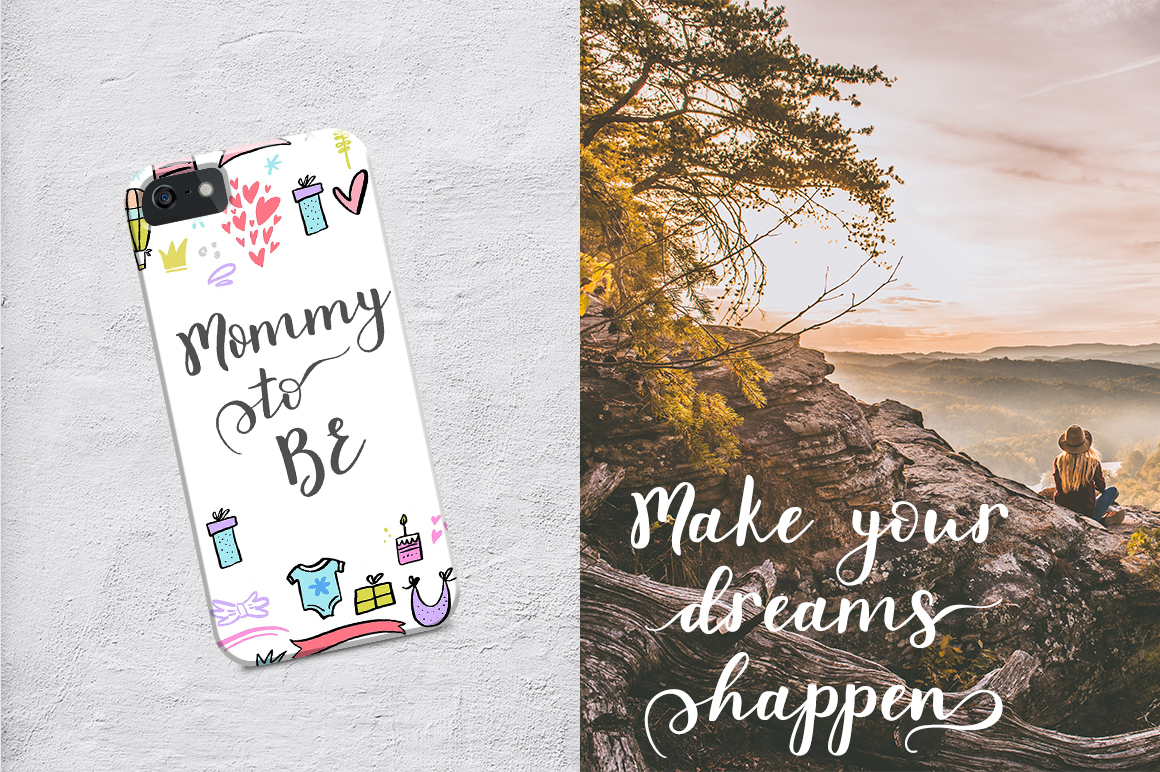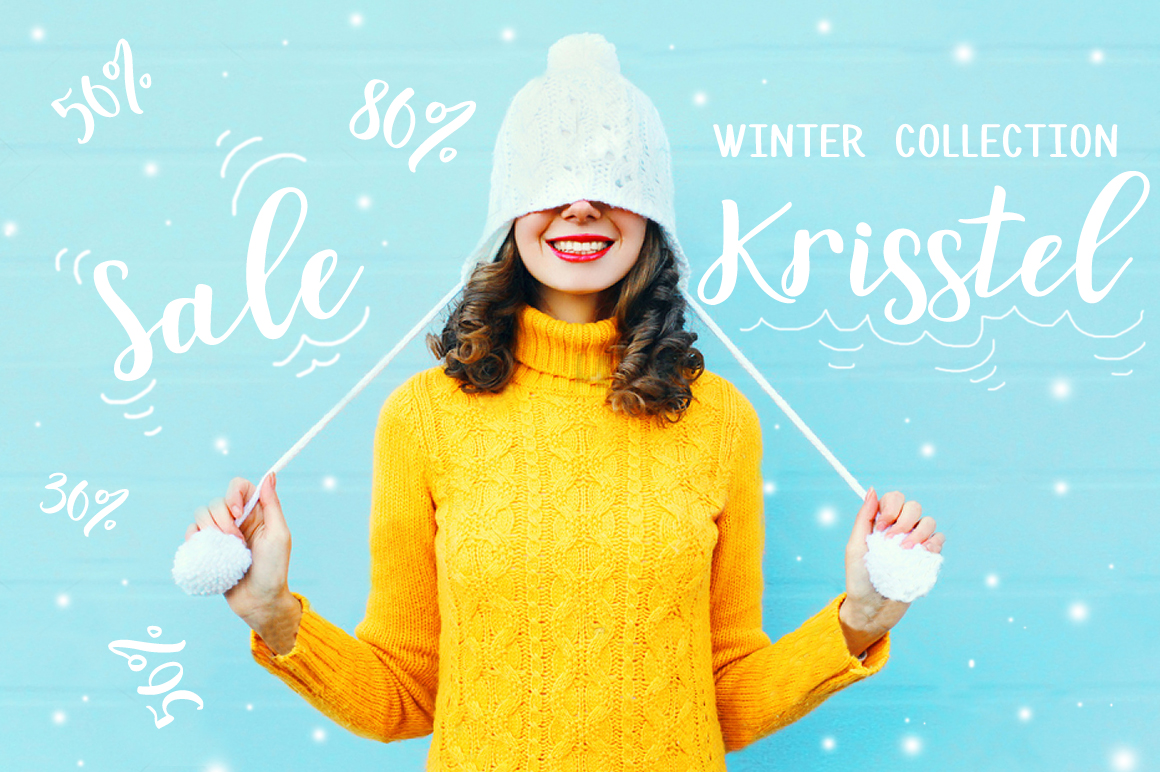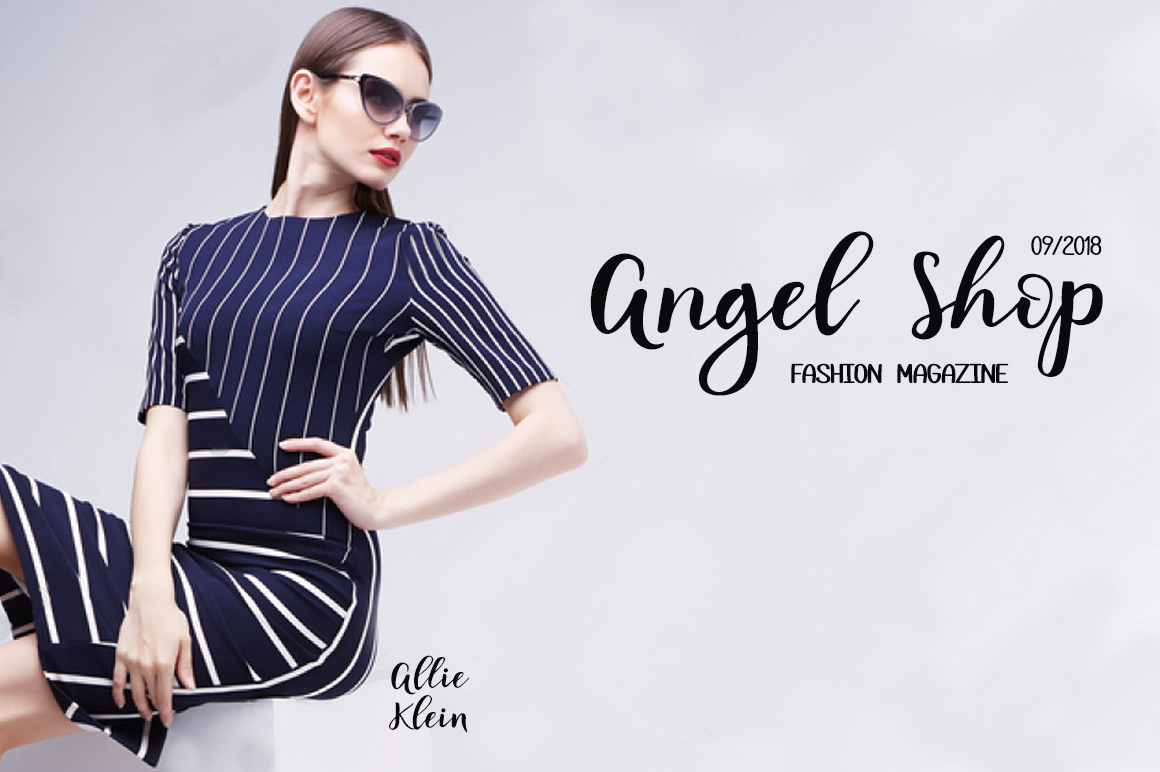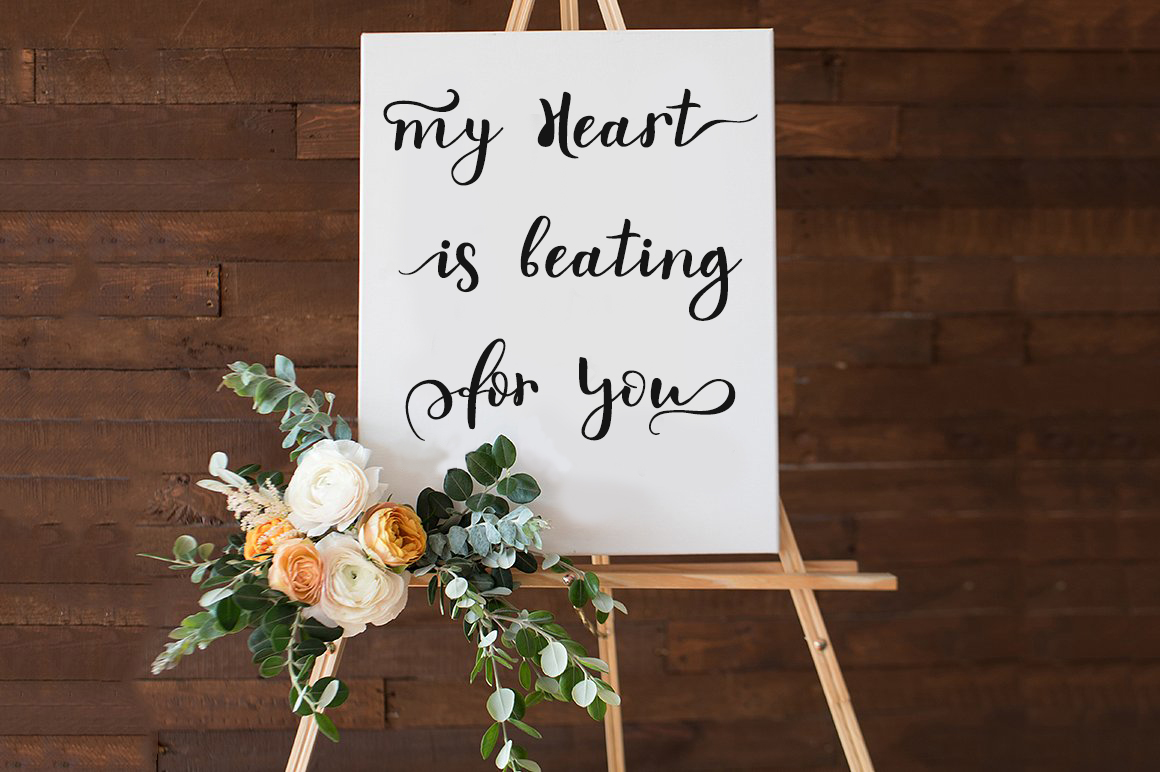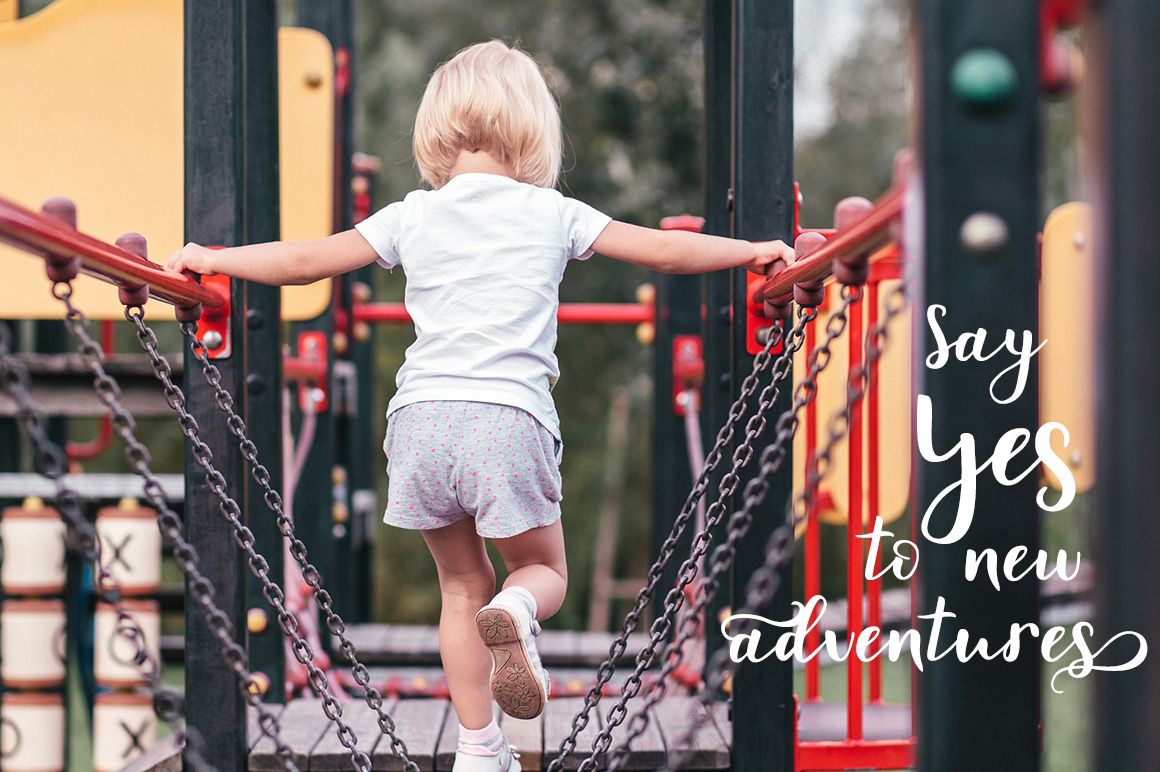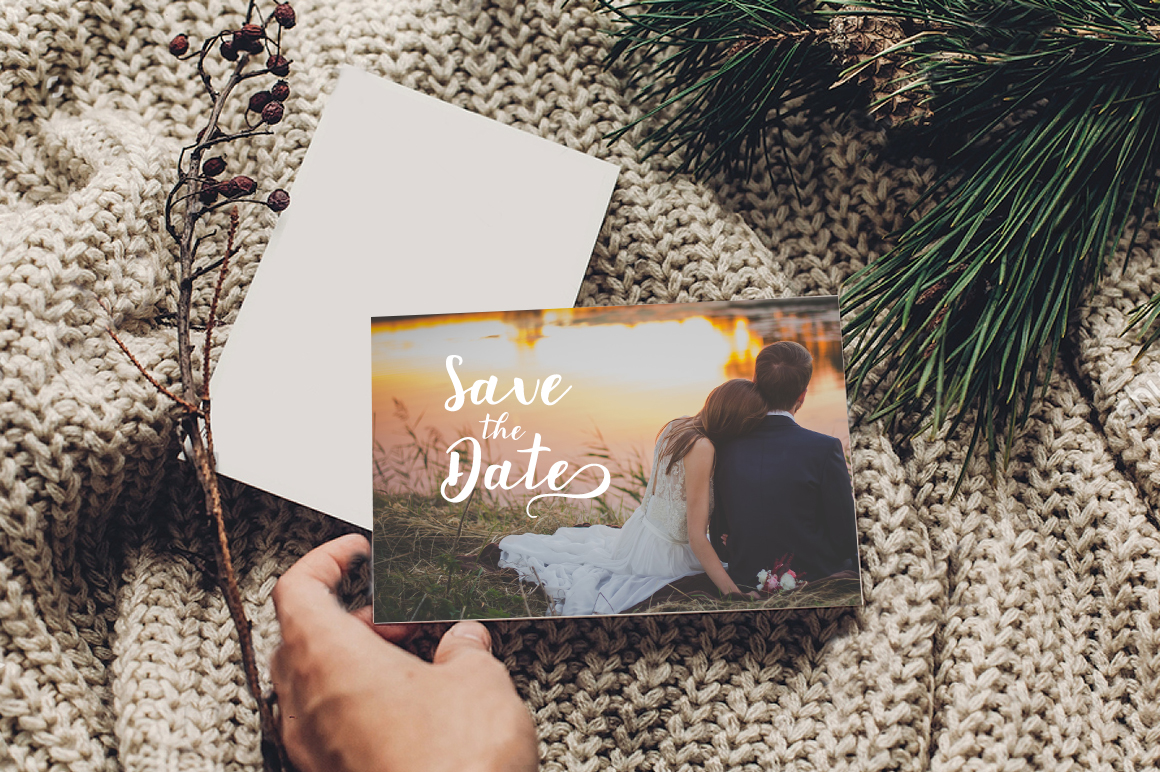
Introduction to Handy Sight Font
As a designer, have you ever found yourself stuck on a project, desperately searching for that perfect font to elevate your creative vision? I know I have. And that’s exactly what happened when I stumbled upon the stunning Handy Sight Font. With its elegant script and modern flair, this beautiful font is a game-changer for any design project.
Whether you’re working on a logo, brochure, or social media campaign, Handy Sight Font is sure to add a touch of sophistication and style to your designs. And the best part? It’s available for free download, making it a valuable resource for designers of all levels.
About Handy Sight Font
With a high-quality design and a transparent background, Handy Sight Font is perfect for any creative project that requires a touch of elegance. In this article, we’ll take a closer look at the features and benefits of this amazing font, and explore why it’s a must-have for any designer’s toolkit.
Key Features of Handy Sight Font
- High quality design for creative projects: Handy Sight Font is designed to provide a unique and visually appealing look for your designs.
- Transparent background: The font features a transparent background, allowing for easy layering and blending with other design elements.
- Unique characteristics: The font features a unique blend of modern and vintage elements, making it perfect for designers looking to add a touch of personality to their creative projects.
- Perfect for design resources: Handy Sight Font is an excellent addition to any designer’s resource library, providing a versatile and high-quality font for a wide range of design applications.
Honest Review: Handy Sight Font
I recently had the chance to work with the Handy Sight Font, and I must say it’s been a game-changer for my creative projects. ✨ The font’s high quality and clean design make it perfect for any project where readability is key.
Here are some of the things I love about the Handy Sight Font:
- Its high-quality design makes it perfect for print and digital projects
- The transparent background allows for endless customization options
Of course, no font is perfect, and I did encounter a few limitations:
- The font may not be as versatile as some other options, particularly for more stylized projects
- Some users may find the font too plain or lacking in personality
Overall, I’m thoroughly impressed with the Handy Sight Font. Its high quality, transparent background, and free download make it an essential design resource for any project.
Handy Sight Font
Handy Sight Font is perfect for a variety of creative projects, including logos, business cards, brochures, and presentations. It’s also great for creating a design resource for your business or personal projects. The font’s transparent background feature makes it perfect for designing on a transparent background, and its high-quality design makes it suitable for a range of applications.